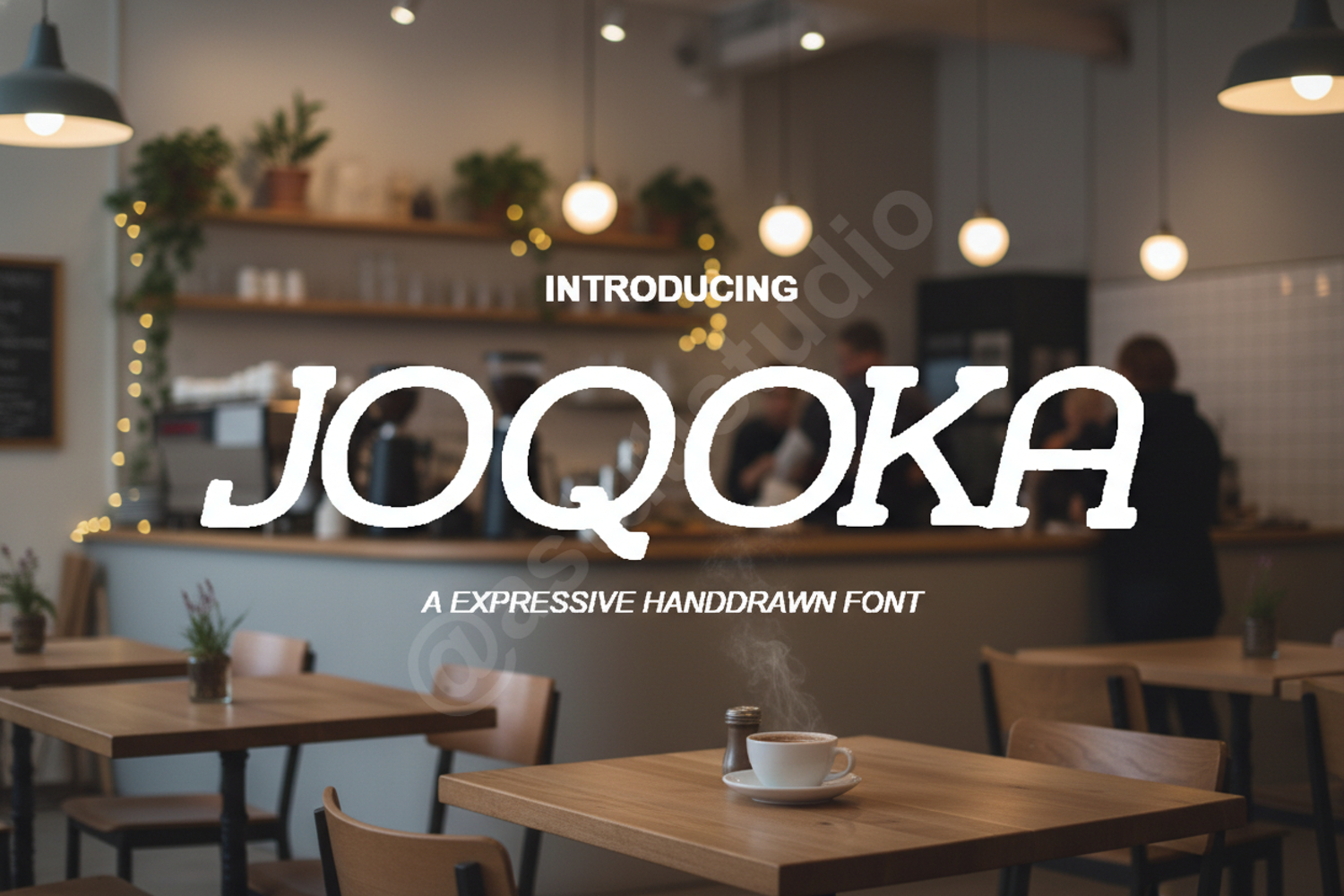
Joqoka - Modern Geometric Sans Serif
Joqoka
Joqoka is a premium typeface meticulously crafted to blend modern aesthetics with exceptional readability. Featuring clean lines and balanced geometric proportions, this font is designed to provide a sophisticated and professional look to any creative endeavor. Whether you are building a brand from scratch or refining an existing identity, Joqoka offers the versatility and elegance required for high-end design.
- Branding and Visual Identity: Create memorable logos and corporate stationery.
- Editorial Design: Perfect for magazine layouts, book covers, and brochures.
- Digital Presence: Ideal for website headers, mobile app interfaces, and UI/UX design.
- Marketing Materials: Enhance social media graphics, advertisements, and posters.
- Minimalist Projects: The clean structure makes it a go-to choice for minimalist and contemporary designs.